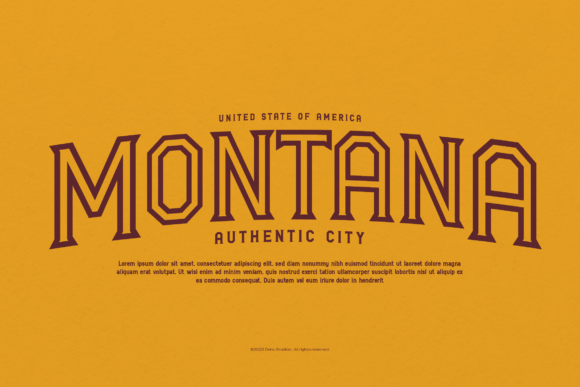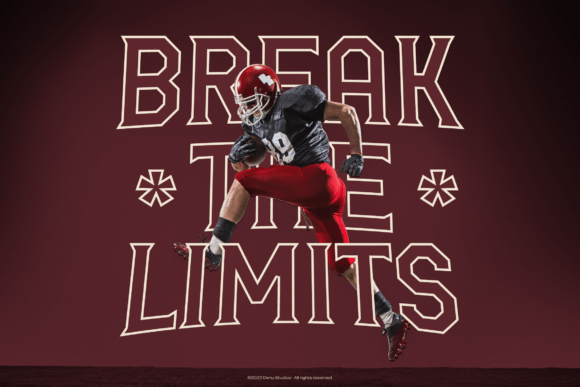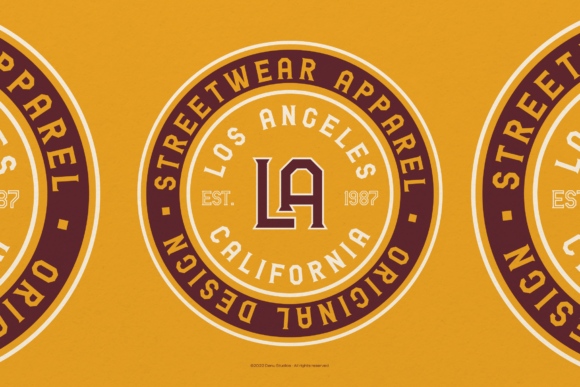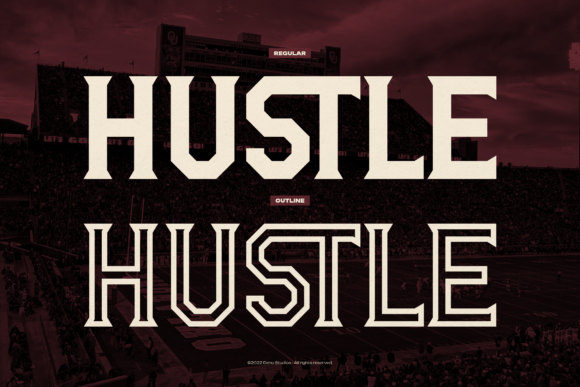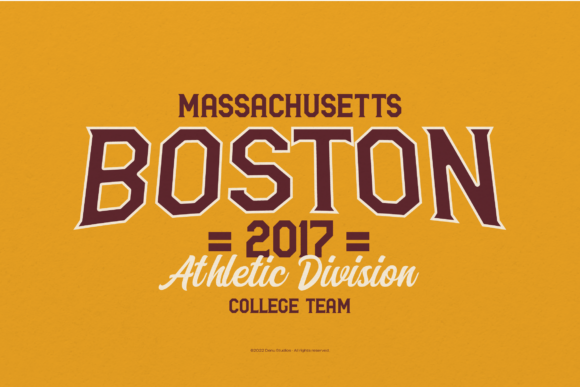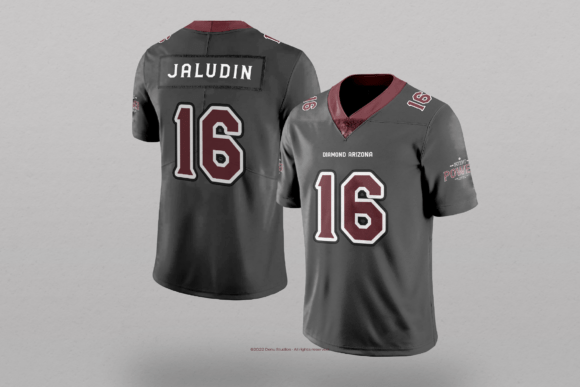
Introduction to Latent Power Font Font
Fonts play a crucial role in design, and the Latent Power Font font is a typeface that brings both character and versatility to any project. Whether you’re working on a branding project, a website, or a print design, the Latent Power Font font offers a unique style that can elevate your work.
Latent Power is a high-impact sports display font designed to energize your titles, team branding, and athletic apparel.
With a strong geometric form and sharp edges, it delivers a dynamic and competitive vibe This font comes in both Regular and Outline styles, giving you versatile options for posters, logos, jersey numbers, and adrenaline-driven designs that demand attention.
Key Features of Latent Power Font Font
Why Choose Latent Power Font Font?
The Latent Power Font font is more than just a typeface – it’s a design tool that helps you communicate your message with style and clarity. Its unique character set and versatile design make it suitable for a wide range of applications, from elegant invitations to bold headlines.
With its carefully crafted letterforms and balanced proportions, the Latent Power Font font ensures readability and visual appeal across all mediums.
What makes Latent Power Font font special?
The Latent Power Font font stands out with its unique design, exceptional readability, and versatility across various design applications.